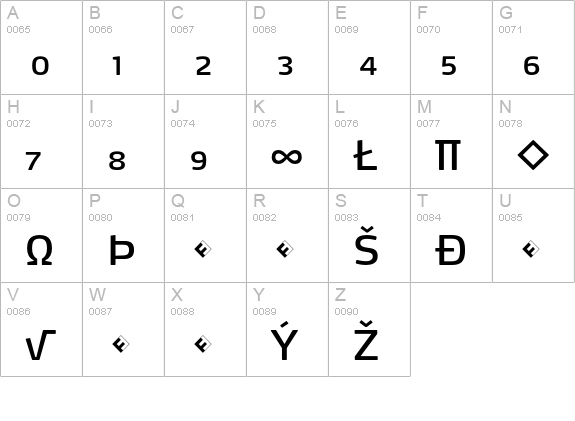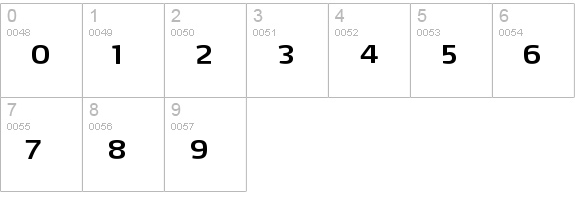
Introducing Max-BookExpert font - a versatile and stylish typeface designed to elevate your projects to the next level. With its clean lines and modern aesthetic, Max-BookExpert font is perfect for a wide range of design applications, from logos to branding, editorial design to web design. This font exudes sophistication and professionalism, making it a must-have in your font library. What's even better is that Max-BookExpert font is available for free download exclusively at FontsMarket.com. Yes, you read that right - you can add this premium font to your collection at no cost! Don't miss out on the opportunity to enhance your designs with the elegance and flair of Max-BookExpert font. Download it today and let your creativity soar.